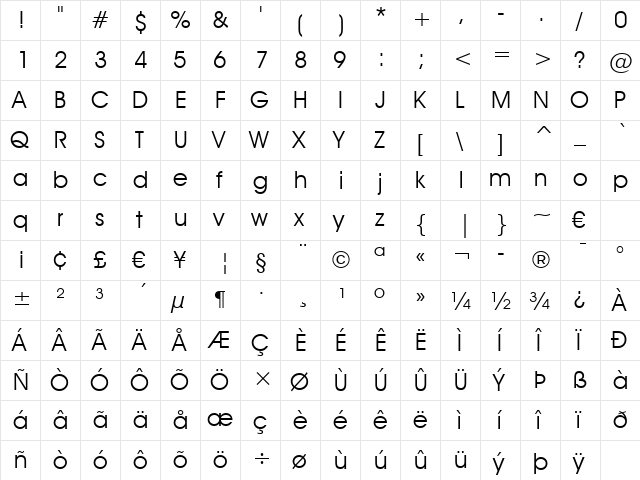
ft60 Book
Design Context for ft60 Typeface
ft60 offers clean, dependable letterforms without strong stylistic allegiance, making it a practical choice for designers who need flexibility.
Pro Tip: Use ft60 in both headline and body roles to test its range before committing to a single application.